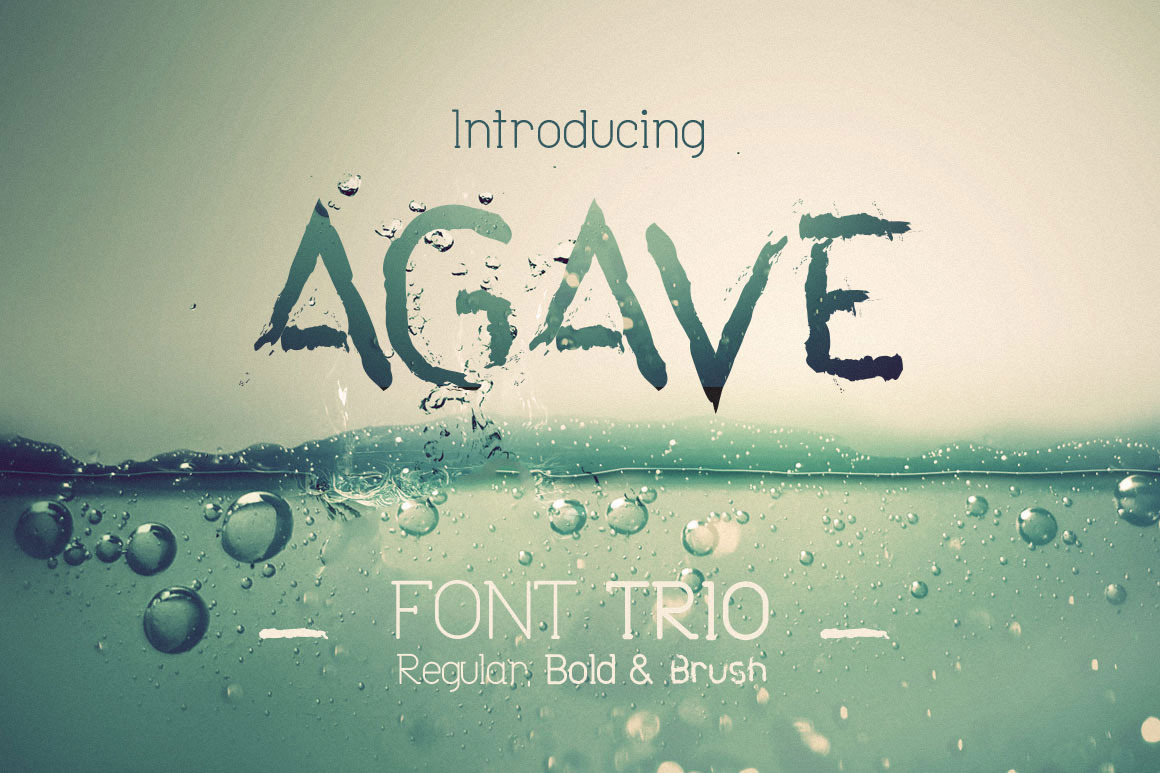
Introducing Agave Font Trio. This product contains 3 perfectly paired typeface. All of them work in various combinations. The brush font works perfectly with other 2 Regular and Bold.